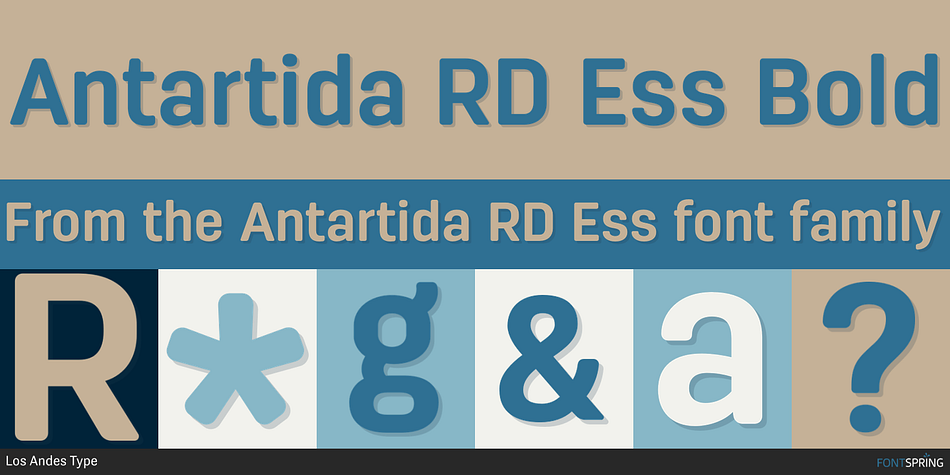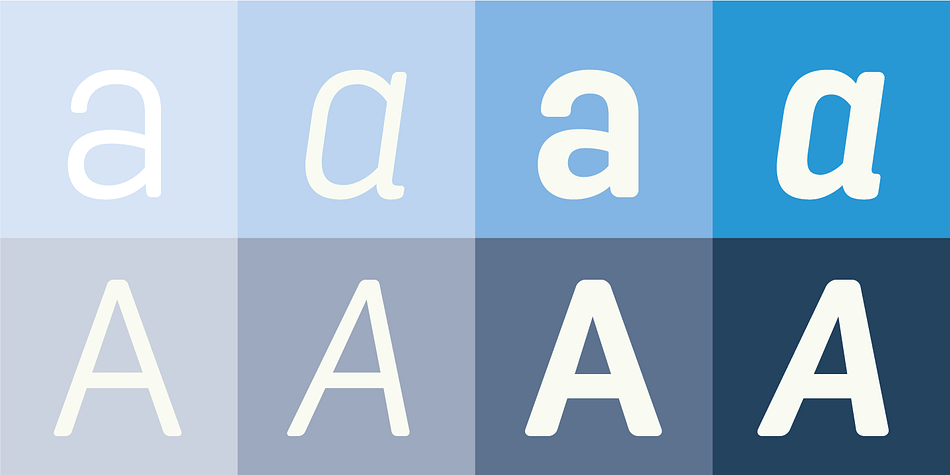
Antartida RD Ess Bold
Antartida RD Ess is a sans serif font family. This typeface has four styles and was published by Los Andes Type.
Antartida Rounded Essential is a sans serif with rounded terminals. Its simple, kind of neutral feeling is functional, clean and minimal; its rounded terminals make it friendly and warm. It is a family of 4 fonts: 2 weights and their italics.